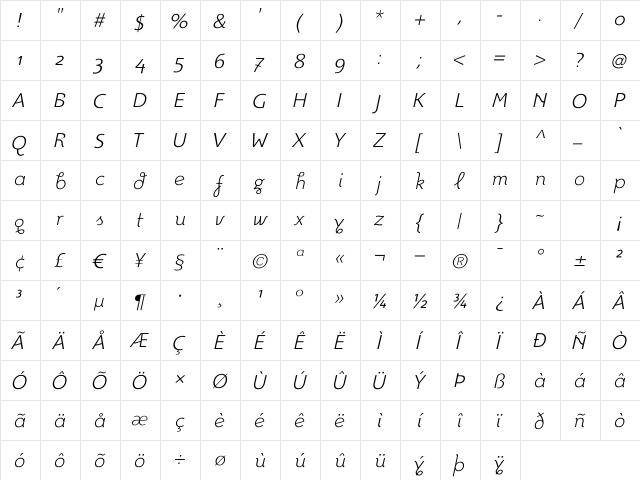
FoxLightItalic Regular Font Preview
Design Context for FoxLightItalic Typeface
FoxLightItalic takes a measured approach to typography — its balanced proportions and neutral character make it a reliable workhorse for both digital and print work. Its italic angle brings a sense of urgency and motion to the letterforms. The delicate stroke weight brings airiness and refinement to layouts.
Pro Tip: Try FoxLightItalic for annotation and caption copy alongside an upright companion — the contrast in angle creates a dynamic but ordered typographic system.